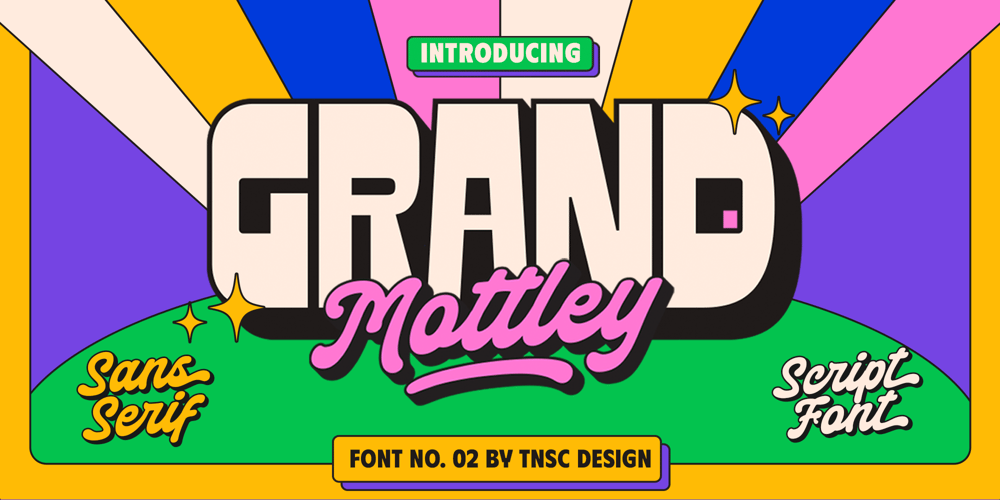
Grand Mottley Font Family was designed by Bagas Ferdiansah, Septianto Nugroho and published by The Native Saint Club. Grand Mottley contains 2 styles and family package options. TNSC Grand Mottley – Retro style font with high contrast on sans, and bold script. Very suitable for design titles, posters, music festivals or other contemporary designs. Inspired by 90s hand lettering, retro packaging and retro stuff.